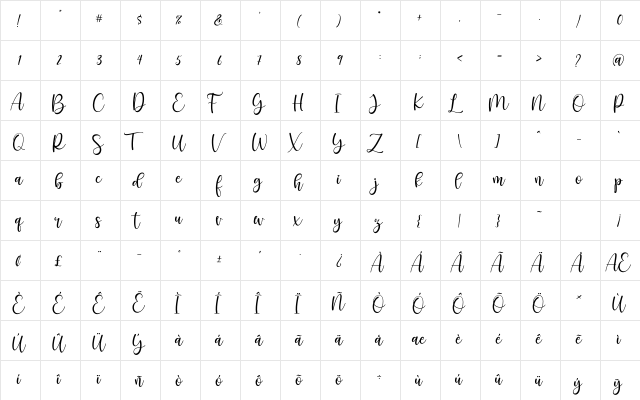
Santhin Regular
Design Context for Santhin Typeface
Santhin is a composed and adaptable typeface that performs quietly and consistently across a wide range of design contexts. Its slender proportions lend an understated elegance to any composition.